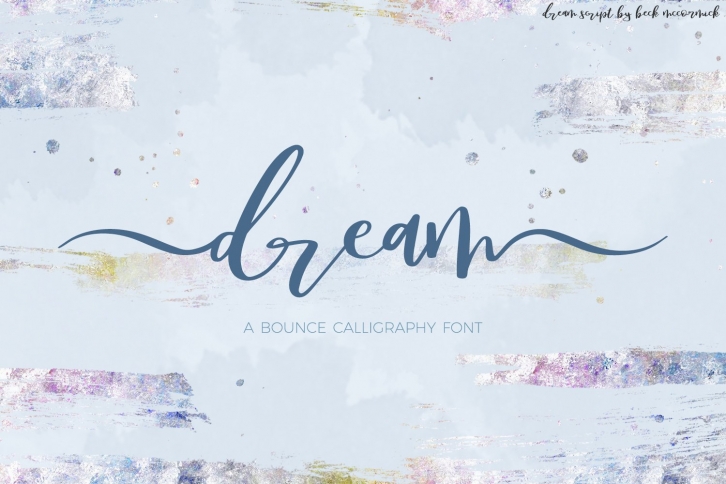
All I ever wanted to do was whatever I wanted.
Dream is a bounce calligraphy font, featuring two different swash options, with both left and right swashes, and a few ligatures. Its up & down baseline makes it visually interesting, and perfect for modern branding, invitations, or quote graphics. Dream is PUA-encoded, making its extensive features easy to access.